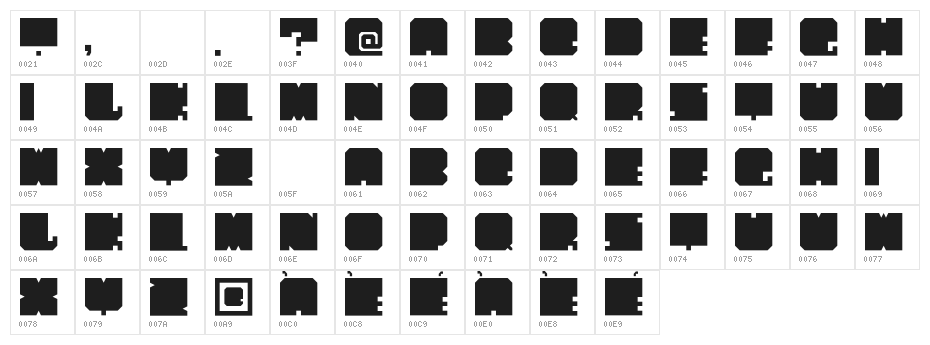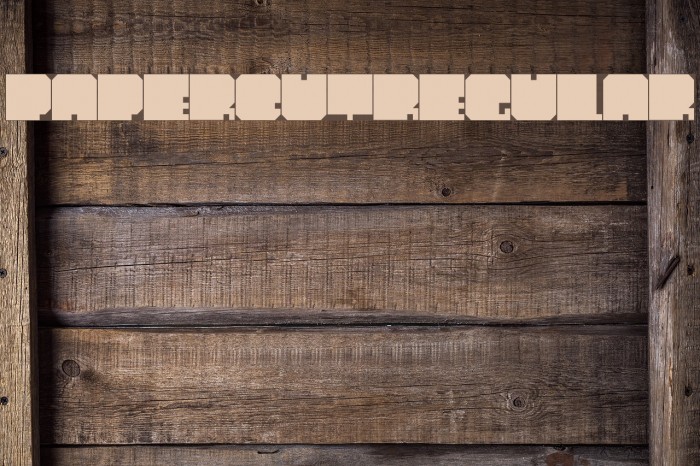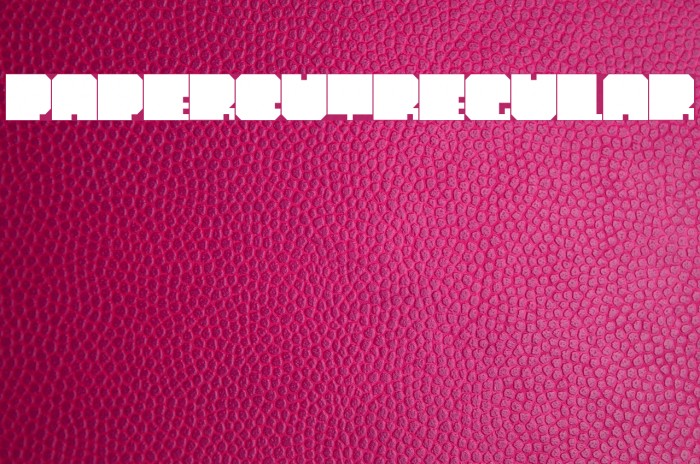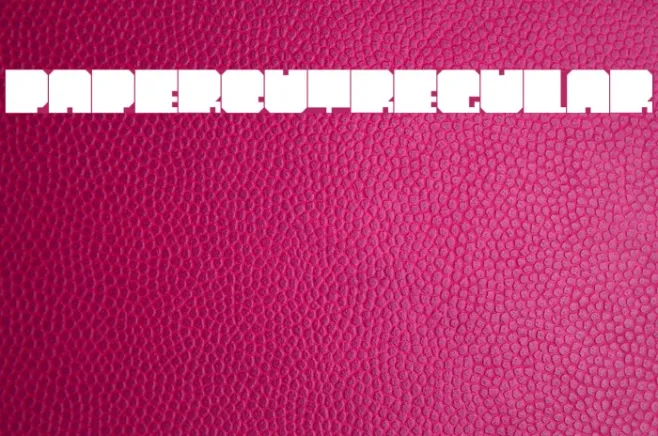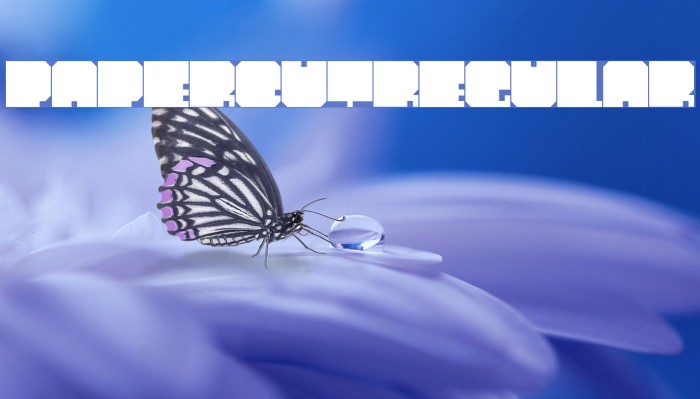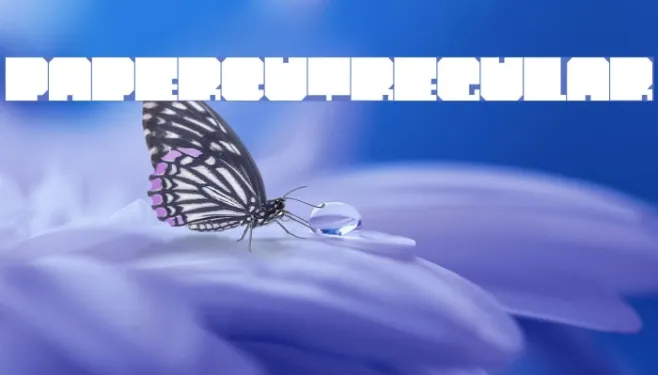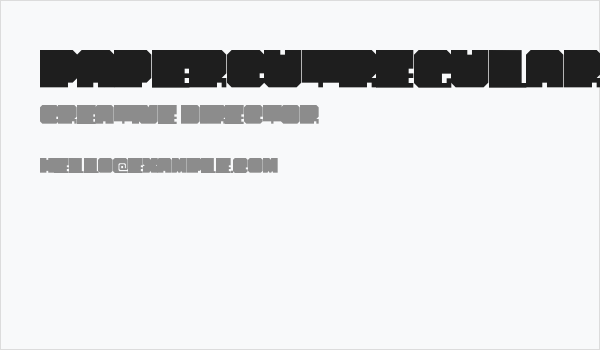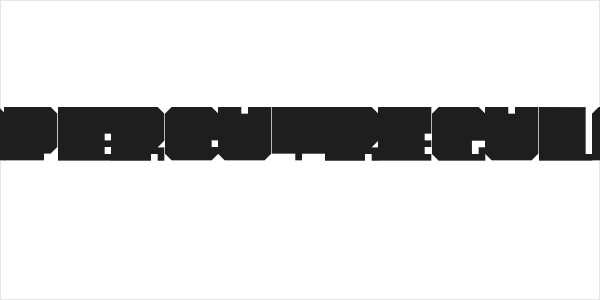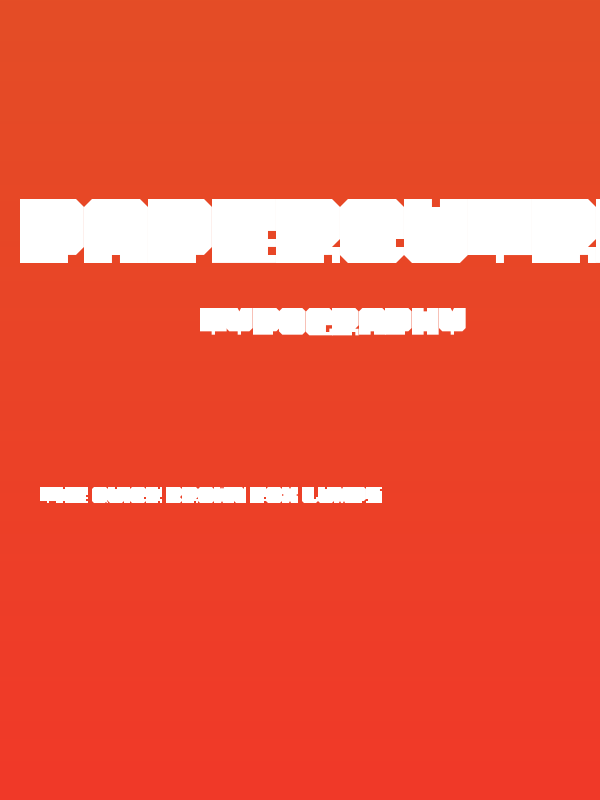
PaperCut-Regular Font
PaperCut-Regular Description
This font features a bold and playful design with a cut-out effect that resembles paper cutouts. Each character is crafted with sharp, angular edges and a distinct geometric style, giving it a unique and eye-catching appearance. The uppercase and lowercase letters maintain a consistent style, while the numbers and special characters follow suit, ensuring uniformity across all glyphs. The font's boldness and distinctive style make it ideal for creative and artistic projects that require a standout typeface.
| Proposed Projects | Ideal for children's book covers, playful posters, creative branding, and artistic invitations. |